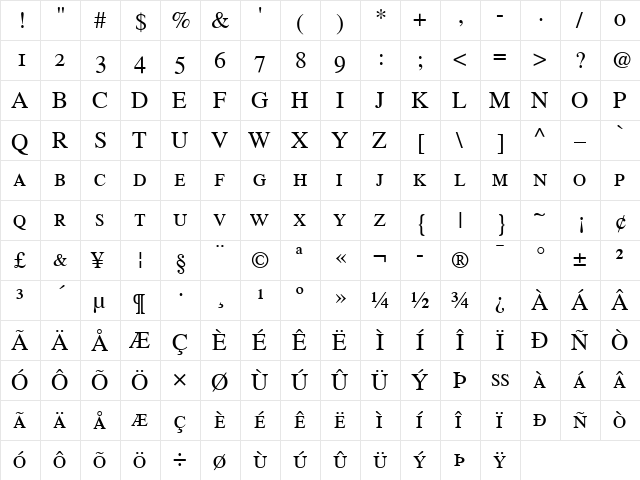
Times Roman SC & OSF Regular
Design Context for Times Roman SC & OSF Typeface
Times Roman SC & OSF takes a measured approach to typography — its balanced proportions and neutral character make it a reliable workhorse for both digital and print work.